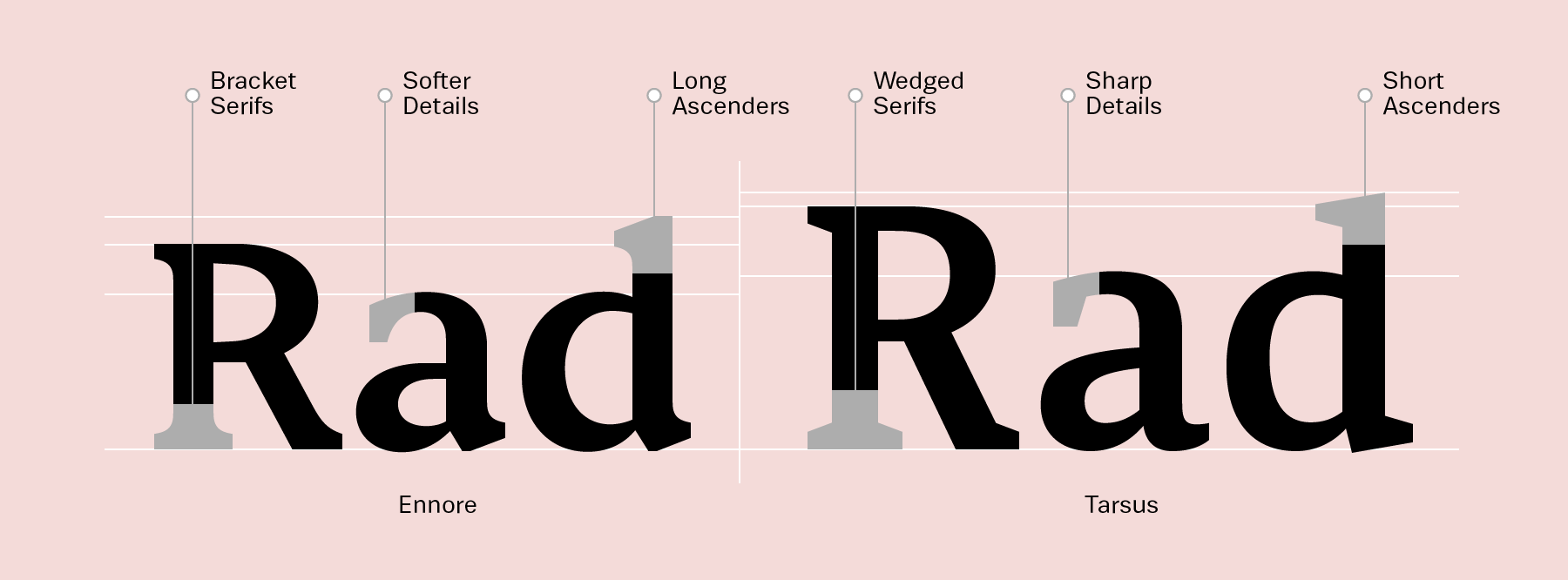
Tarsus and Ennore are the two newest Latin-script serif families from the Indian Type Foundry. While these two typefaces bear similarities, they aren’t interchangeable; each has been developed to excel at different tasks. Tarsus is a sturdy text typeface that can handle any environment you throw it into, even newsprint. It features sharp, wedge-like serifs and open counter forms. Text set in small sizes remains quite legible. The family includes five fonts, running a weight range from Light to Bold. Tarsus Light is very low in contrast, but as the family’s weights grow bolder, their stroke contrast increases, too.
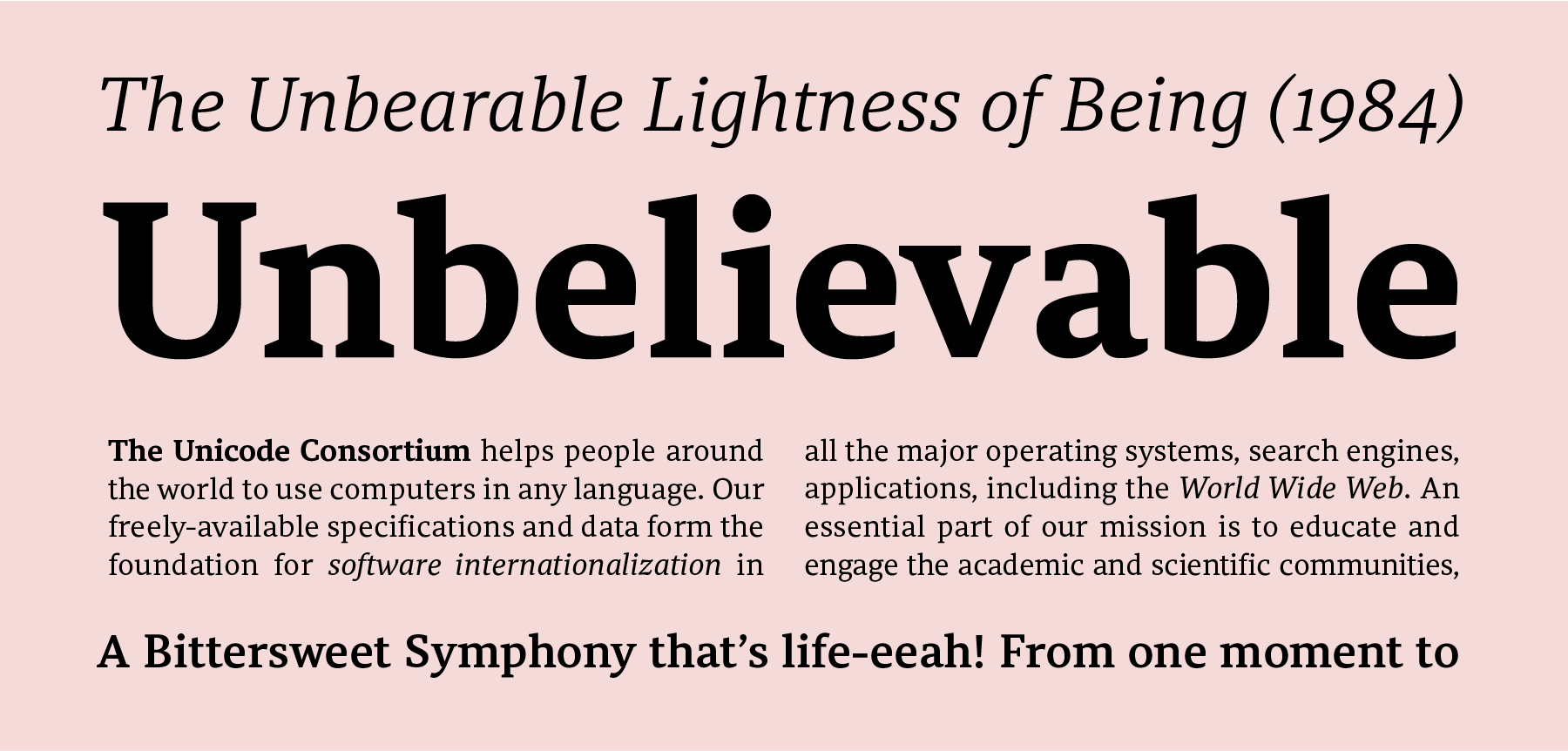
At first glance, Ennore is a similar design. However, its glyphs are much smaller on the body than Tarsus’s are. If you equalise the x-heights of both designs, you’ll see that Ennore has longer ascenders, and its counters are even more open. Ennore’s letterforms feature bracketed serifs, instead of wedges. These curves give text set in Ennore a bit more nuance. Like Tarsus, Ennore includes five font weights. All of them have clear stroke contrast, even the Light weight. This makes Ennore more suited for display usage, while Tarsus is the better option for smaller-sized type. Ennore is an excellent face for editorial designers.
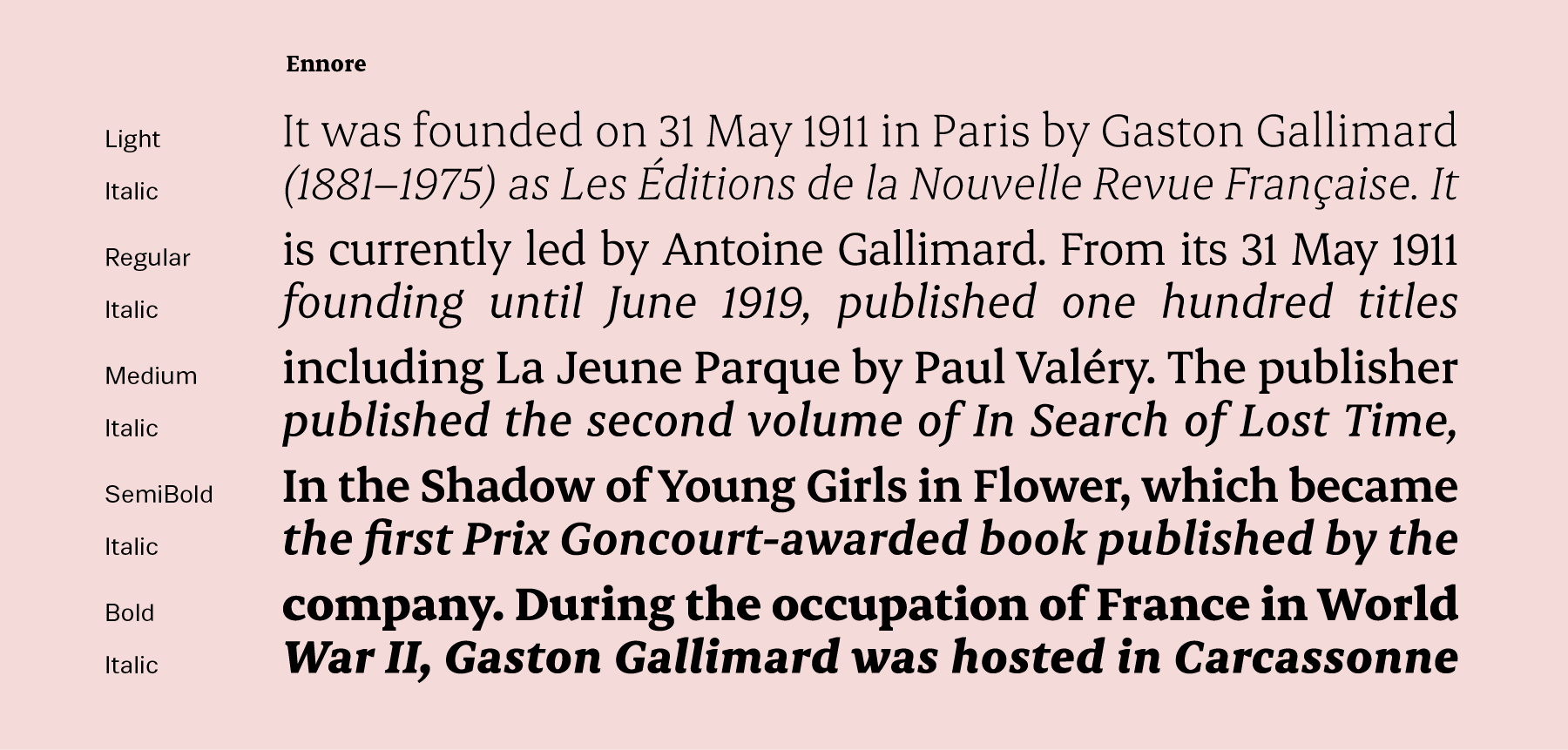
And the typeface’s names? Ennore is a Chennai suburb, while Tarsus is a term with much more meaning. In present-day medicine and zoology, it describes a bone in the foot. There is also a historic city in south-central Turkey called Tarsus. Tarsus’s numerals are oldstyle figures – the better option for running text – while Ennore’s are proportional lining figures. All of the fonts in the Tarsus and Ennore families have a character set of 385 glyphs, which supports all European languages written with the Latin script. Tarsus was designed in 2014–15 by Khyati Trehan and ITF; Ennore was designed in 2015 by Nikhil Ranganathan and ITF.